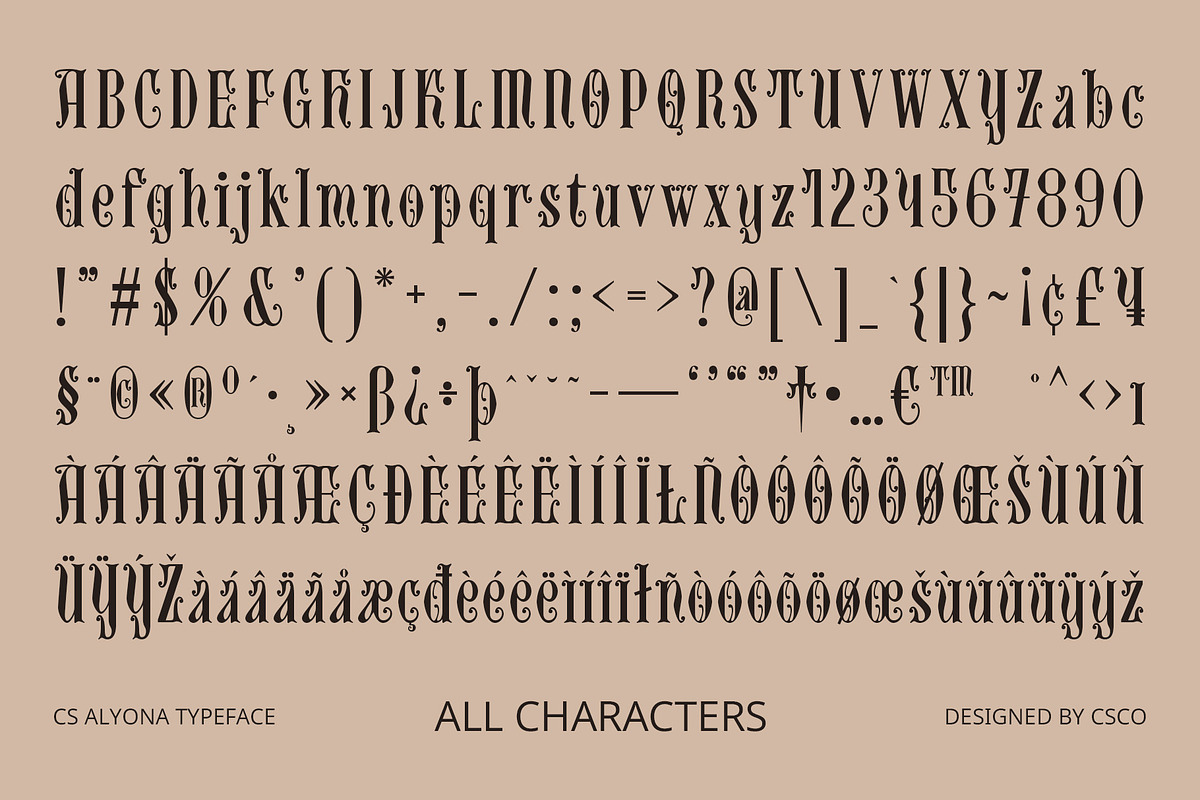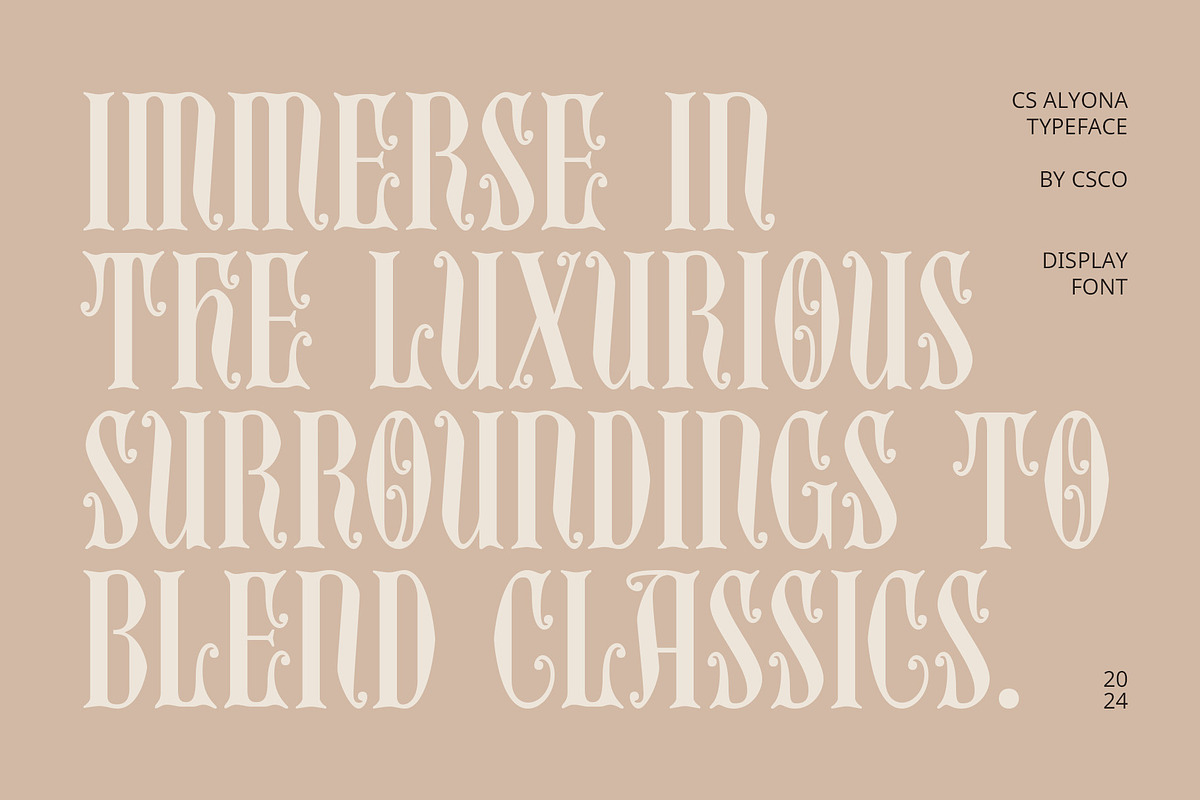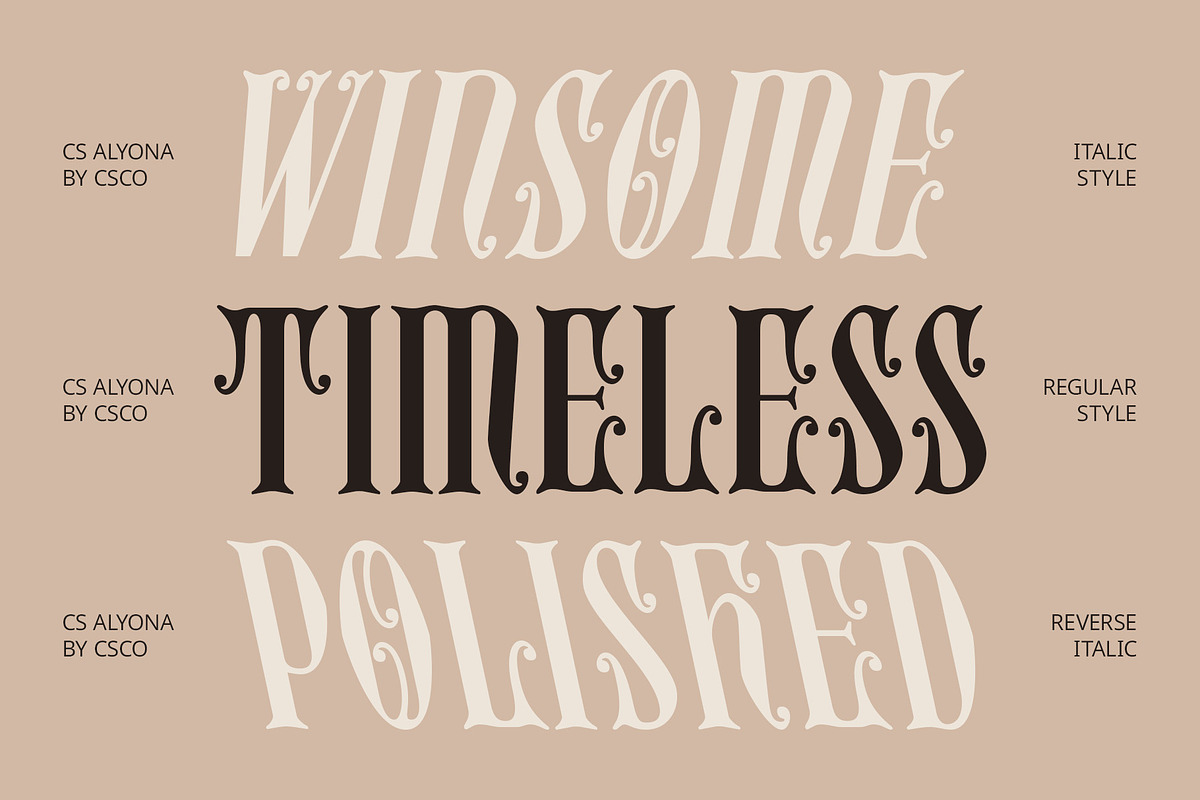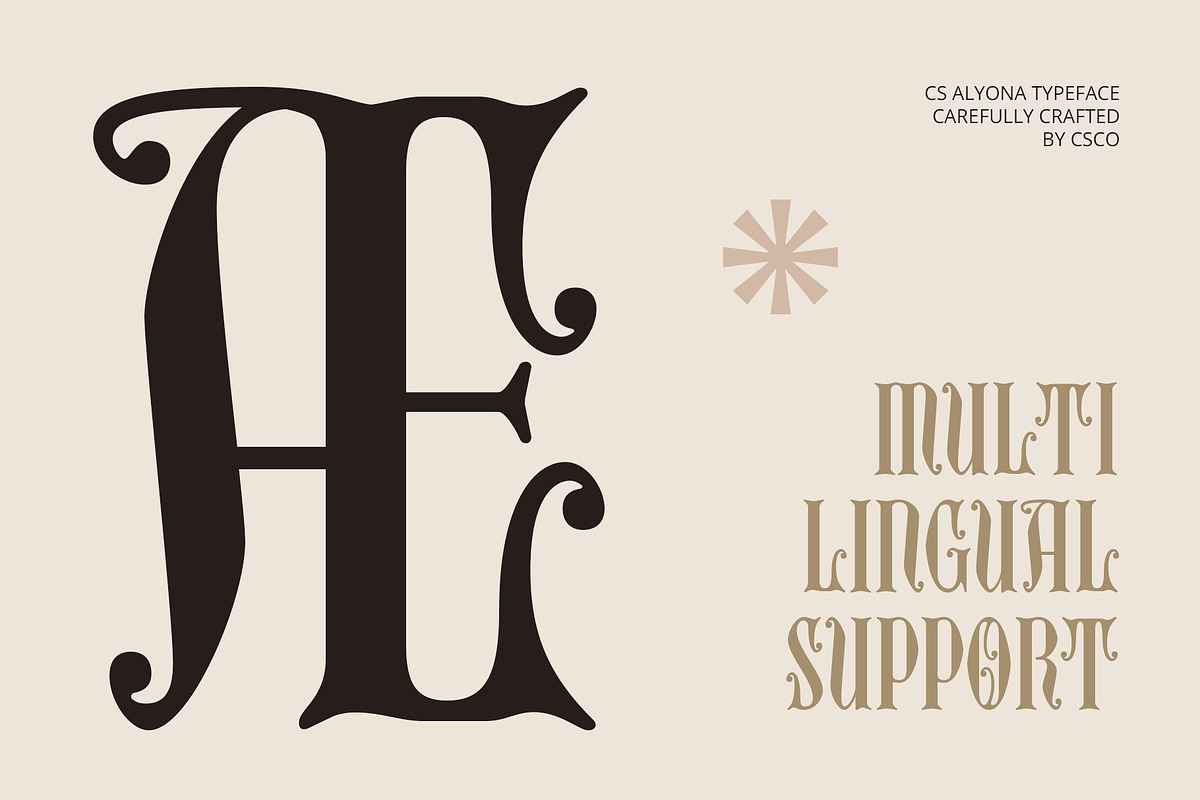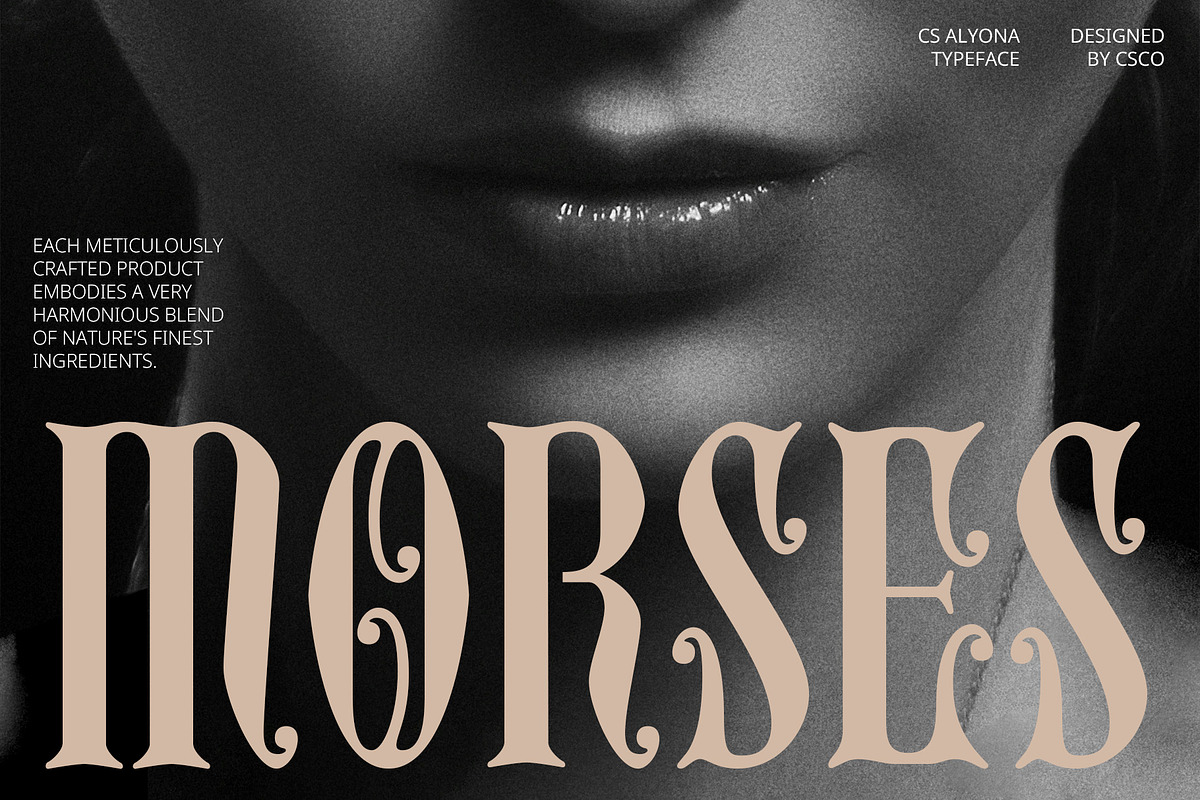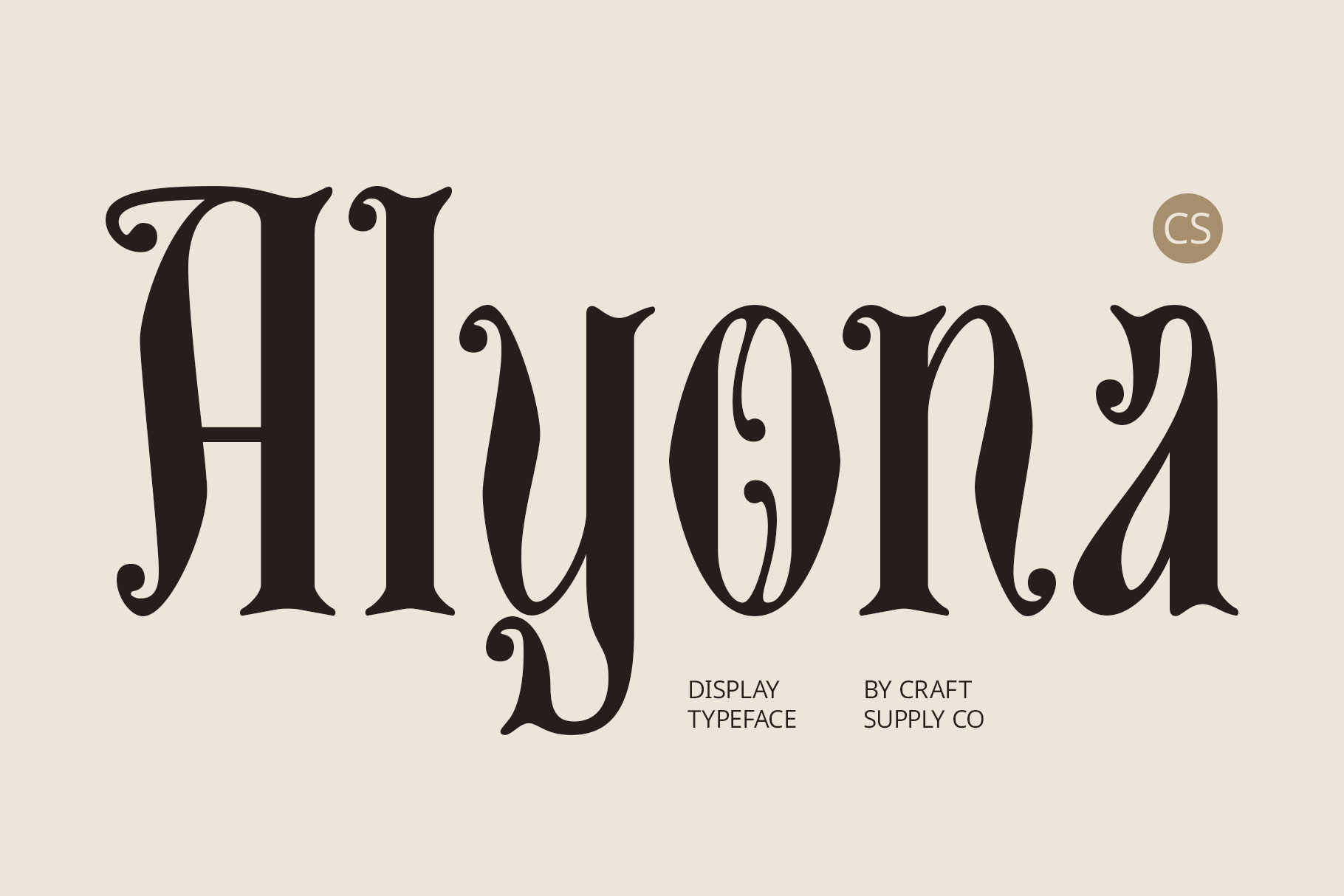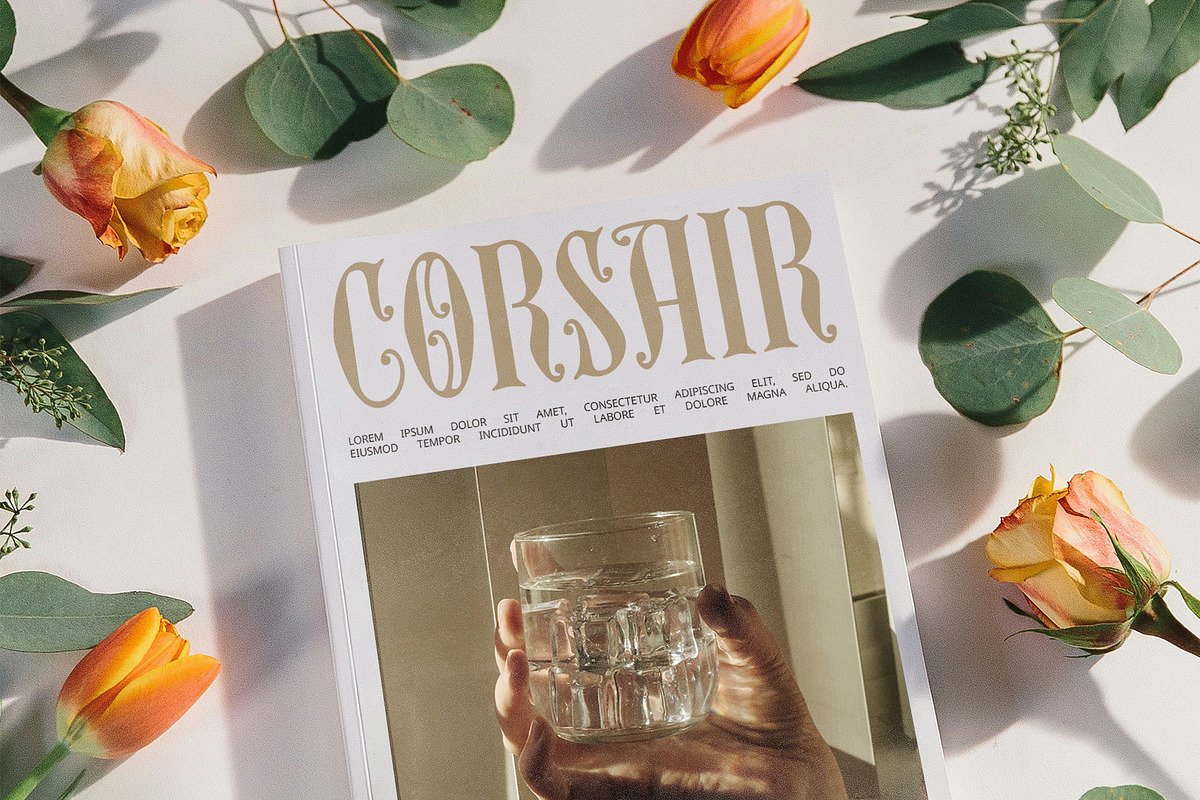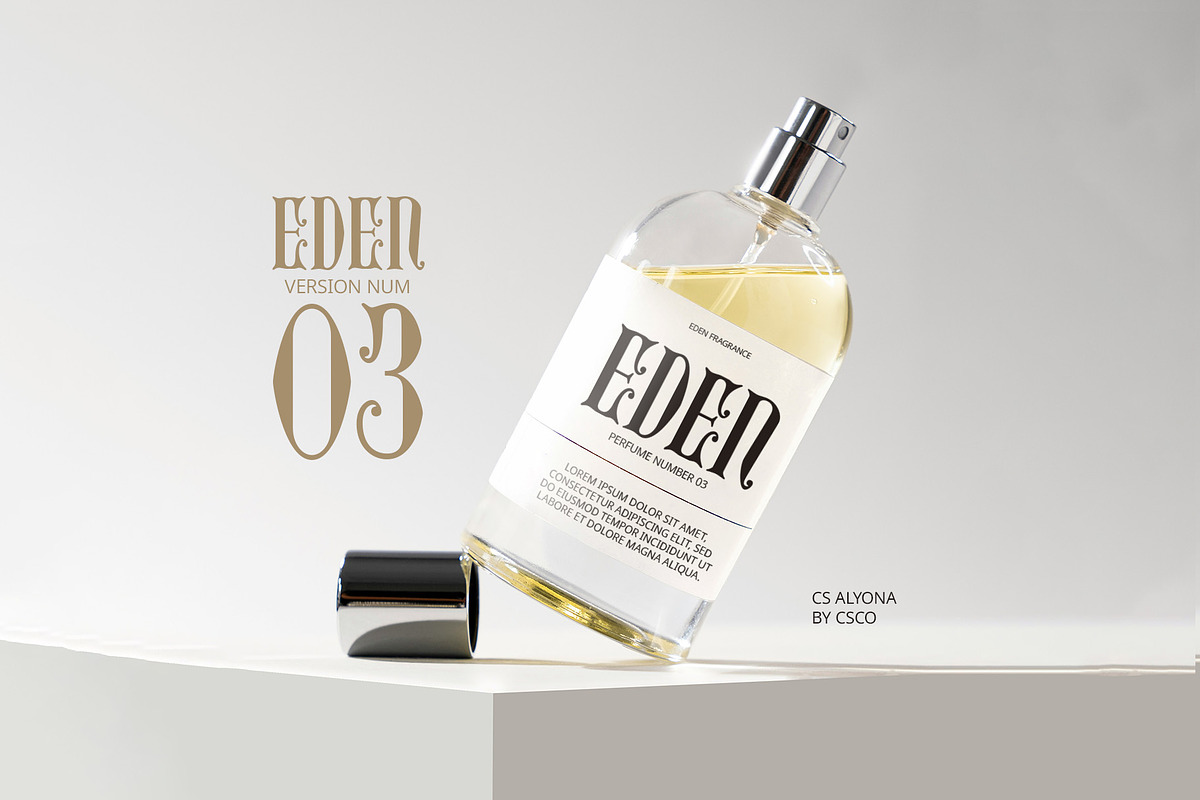
CS Alyona – Gothic Font
Bold and Dramatic Elegance CS Alyona is a display serif font with Gothic styling, featuring bold and dramatic letter designs that evoke a sense of strength, mystery, and classic elegance. Its distinctive Gothic characteristics make it an ideal choice for projects that require a powerful and captivating visual impact.
Perfect for Historical and Luxurious Themes The bold and intricate design of CS Alyona is perfect for projects aiming to convey historical, luxurious, or artistic themes. This font’s strong presence and elaborate details make it suitable for event posters that need to stand out, exclusive logos that demand attention, and book covers that tell a story through their design.
Versatile and Captivating CS Alyona’s Gothic styling offers a unique blend of traditional elegance and modern flair. Its versatility allows it to be used in a variety of design applications, from high-end branding to artistic projects. The font’s dramatic letterforms ensure that your designs will leave a lasting impression, capturing the viewer’s attention with its rich and captivating aesthetic.